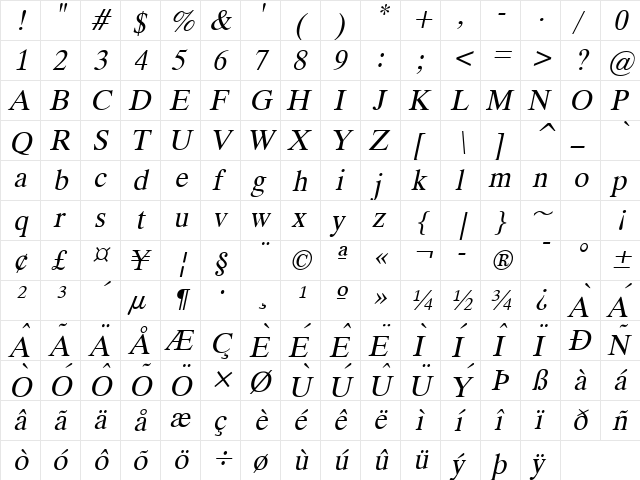
Duke Wide Italic
Design Context for Duke Wide Typeface
Duke Wide offers clean, dependable letterforms without strong stylistic allegiance, making it a practical choice for designers who need flexibility. The dynamic lean of this cut emphasises speed and emphasis in any layout.
Pro Tip: Use Duke Wide for emphasis, pull quotes, and subheadings where its slanted energy can add rhythm to the layout.